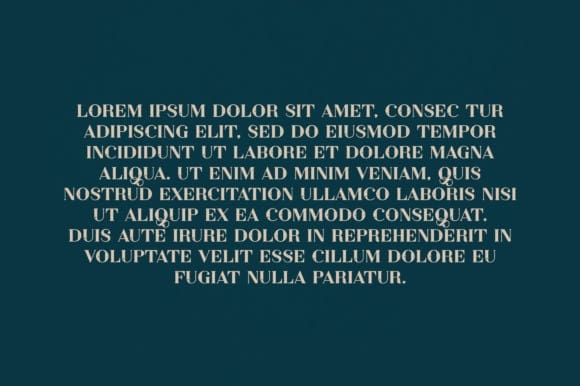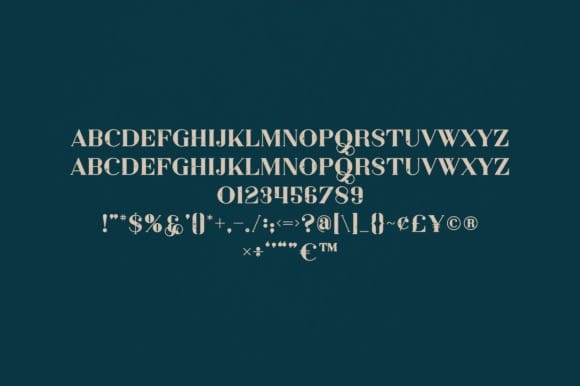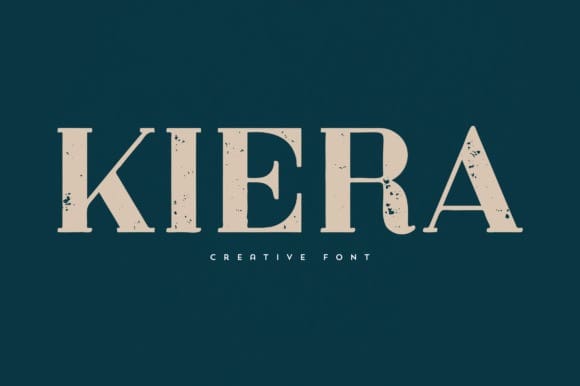
Kiera Serif Font
Kiera Serif Font, is an elegant and versatile font that will make your typography truly unique! It will enchant every logo, branding, headline, or plain text!